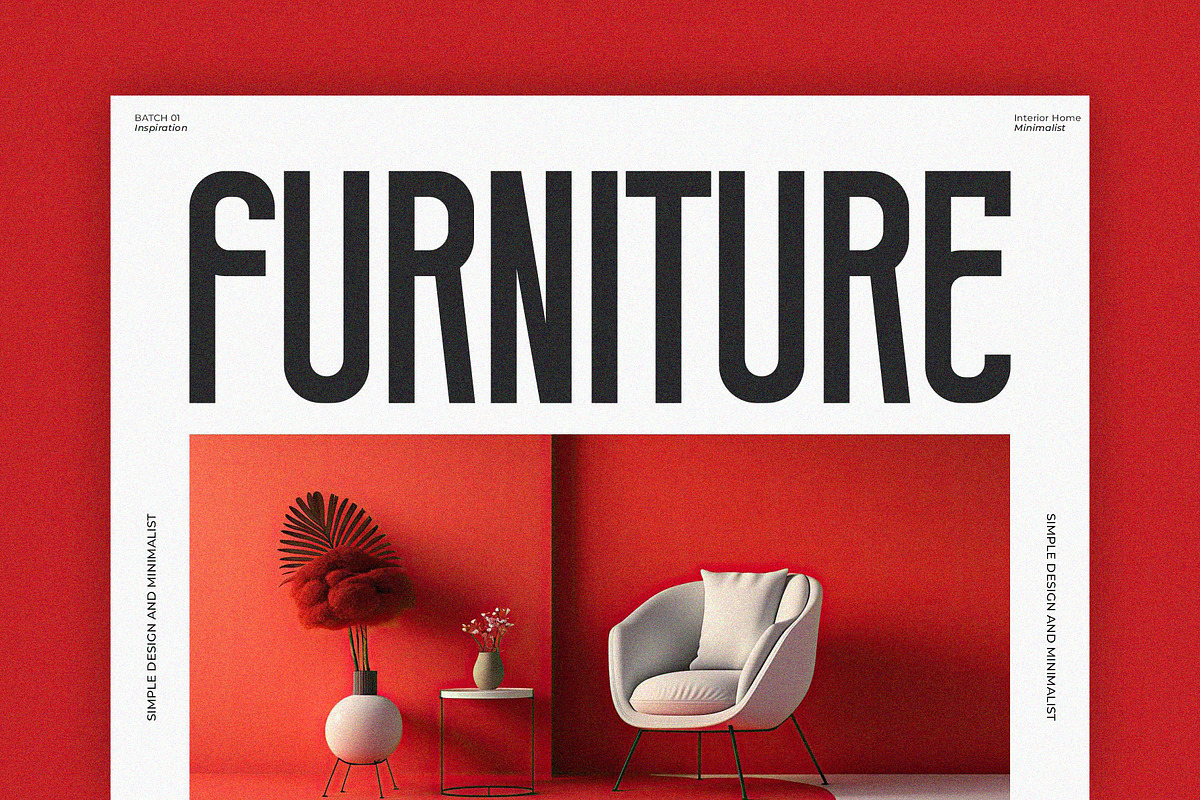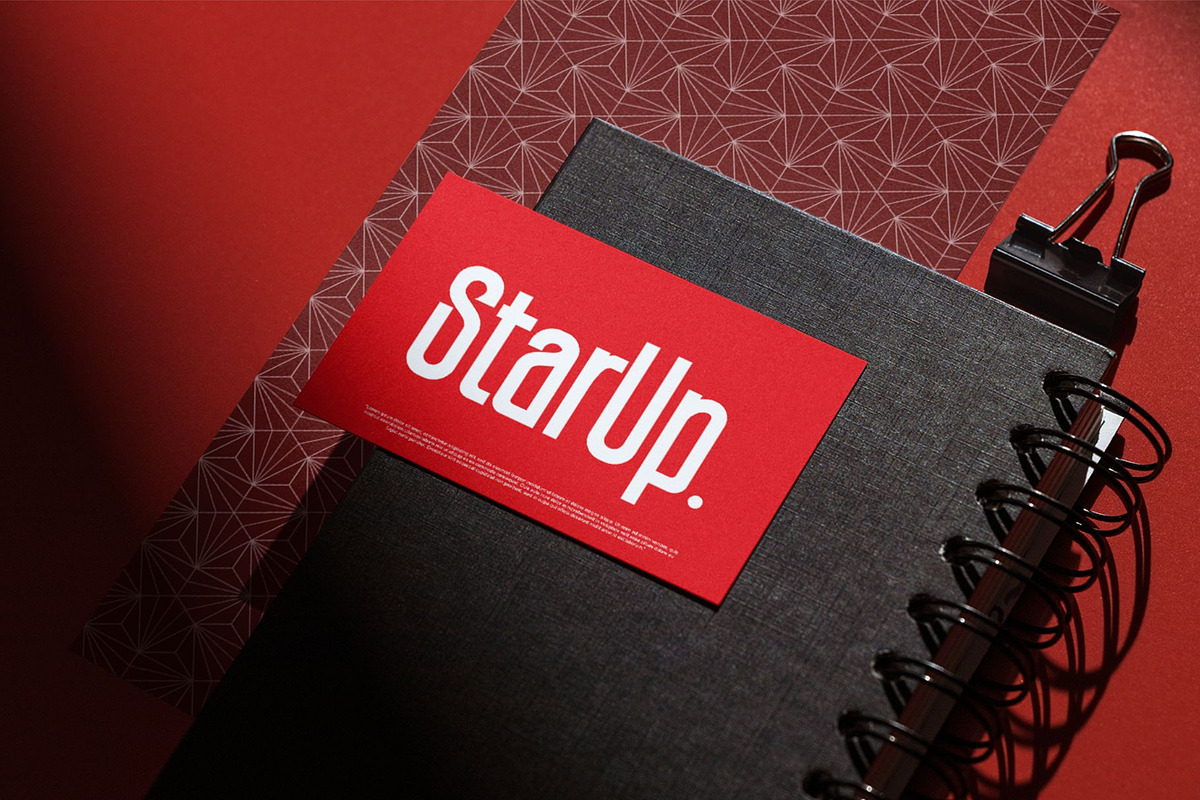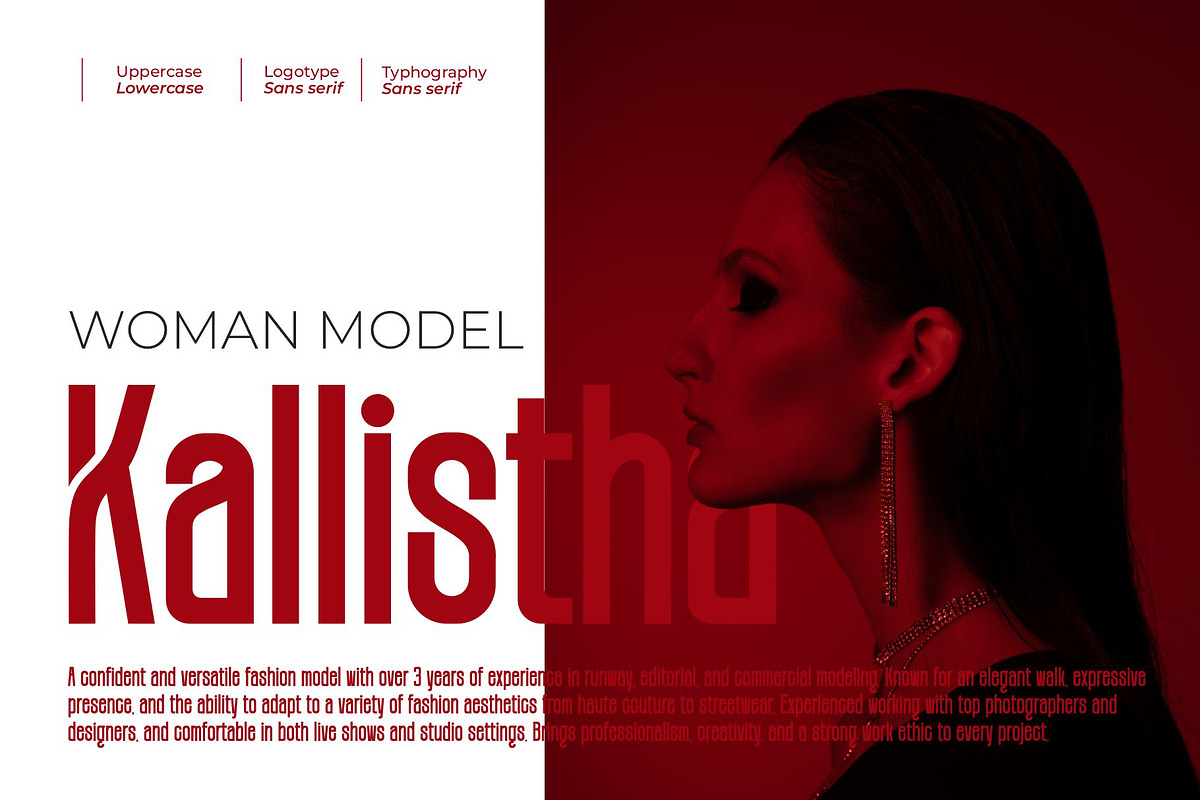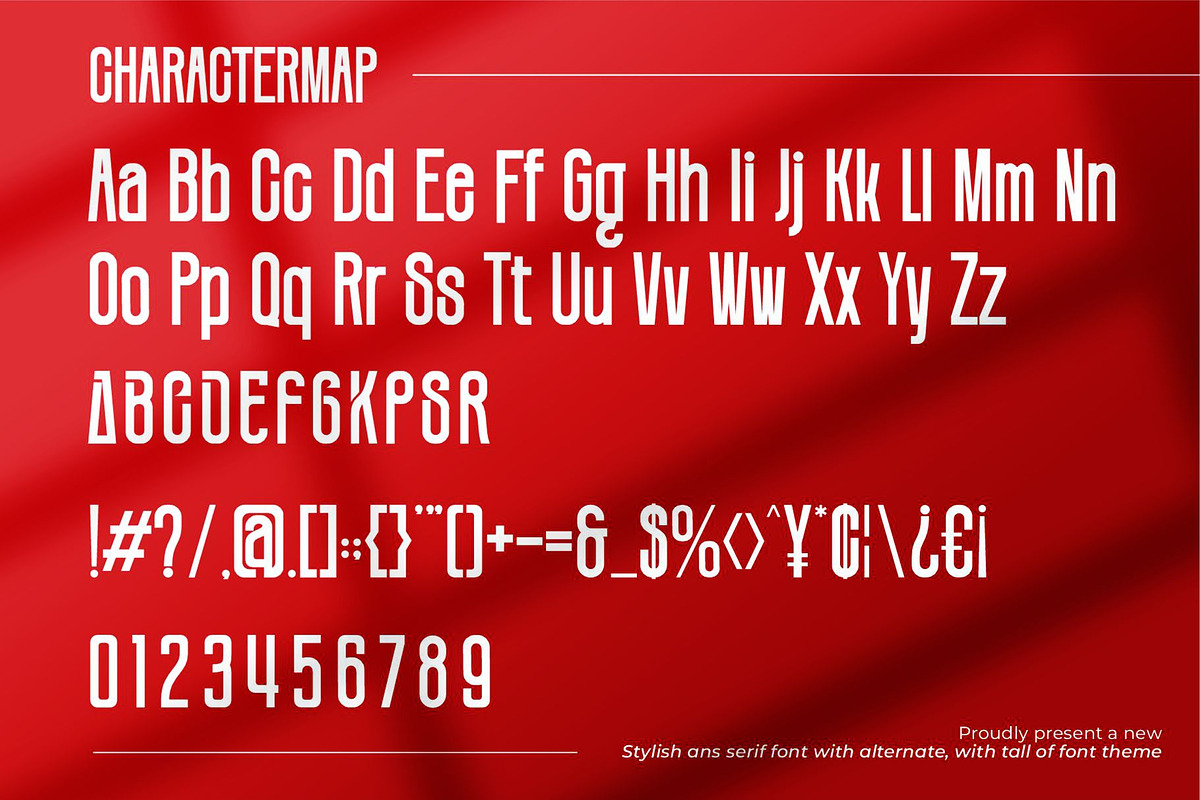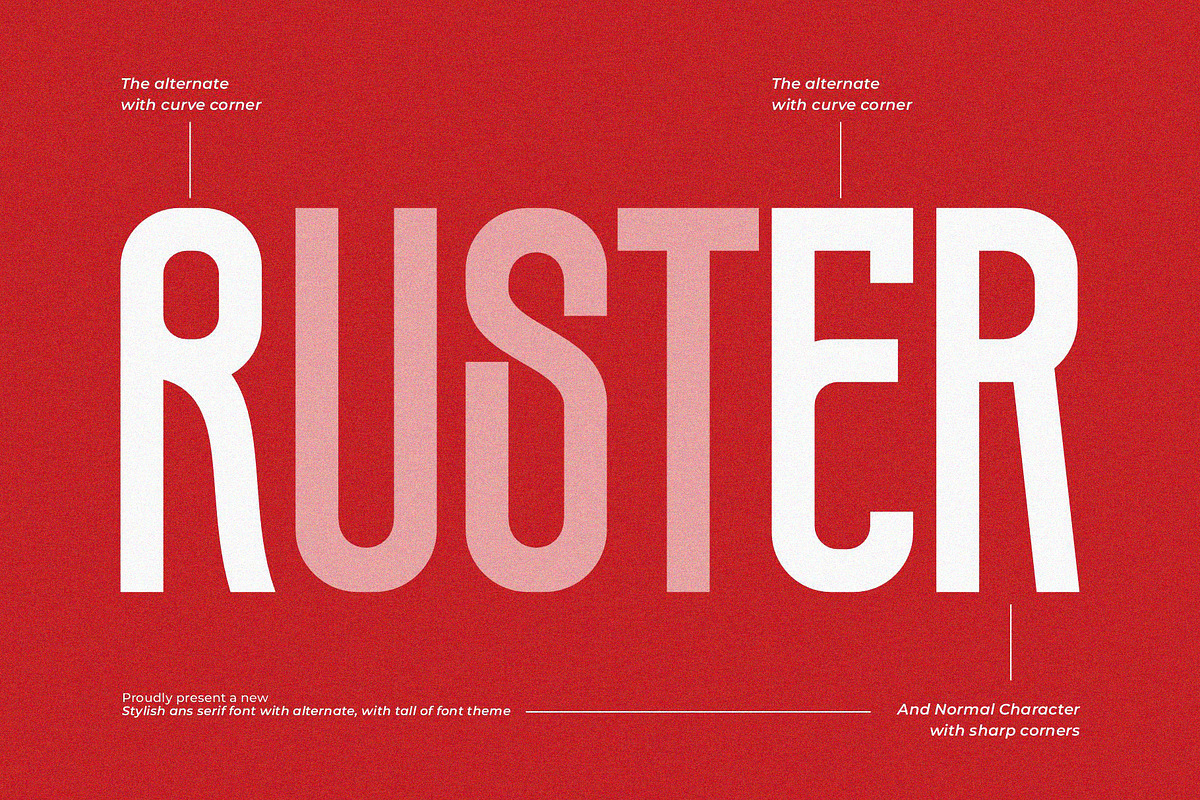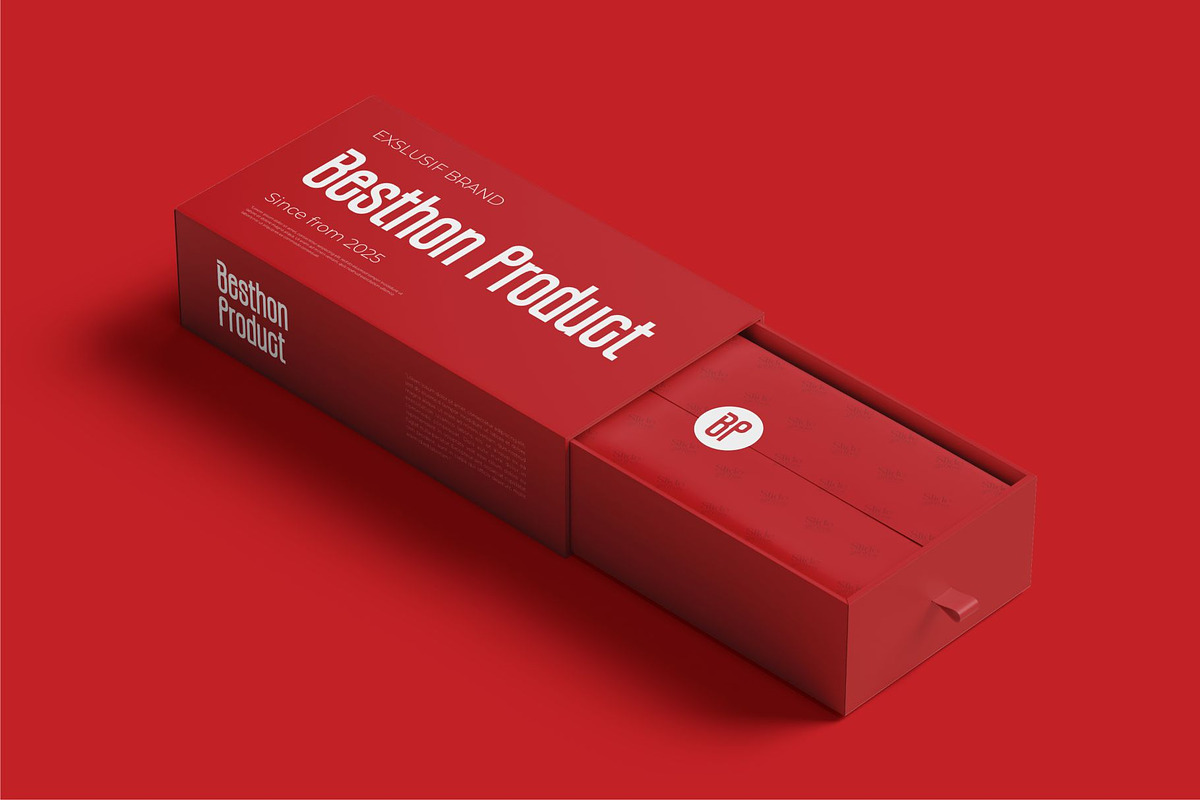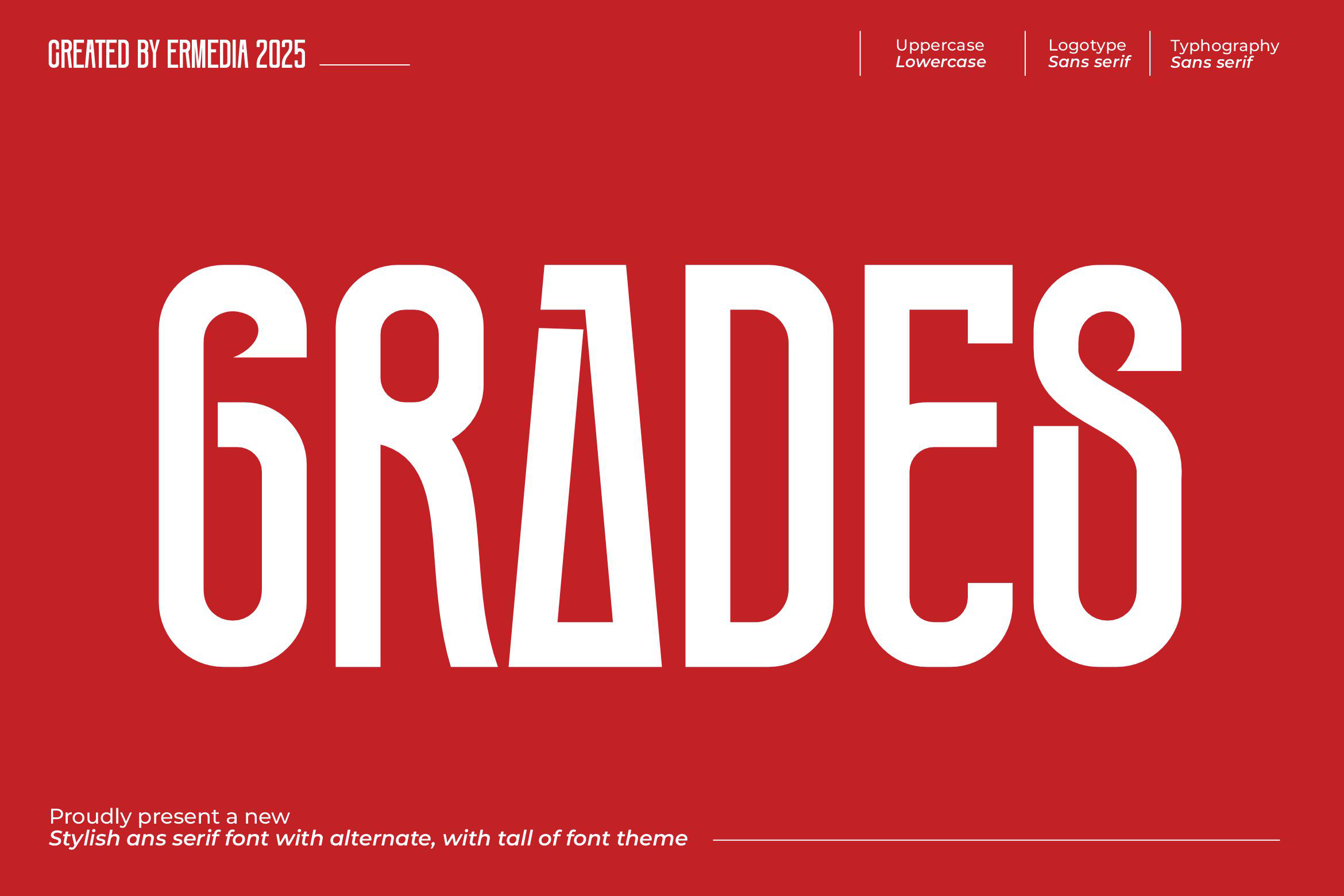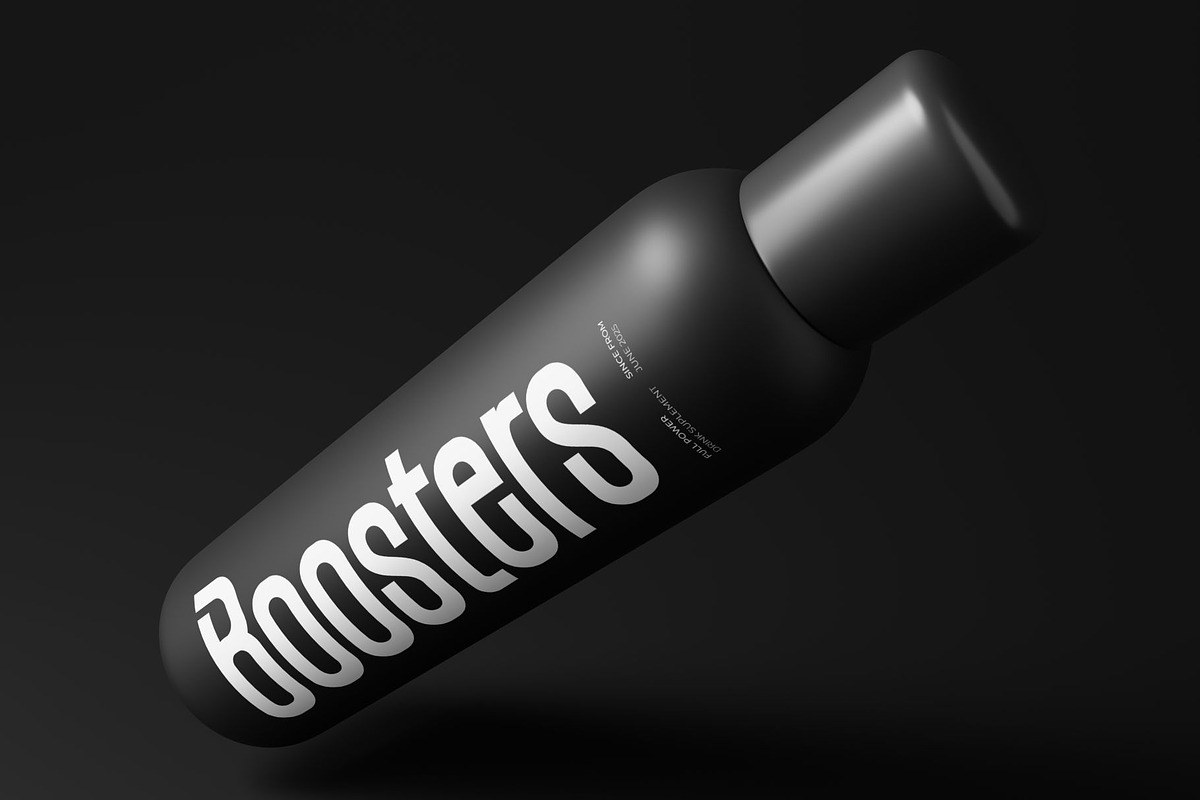
Grades | Modern Tall Sans Serif Font
Introducing Grades is tall sans serif Font modern, trendy and stylish. It has a unique character with wood theme. It is perfect to be combined with invitation card designs, company logos, movie titles, movie names, business cards, book titles, brand names and various other designs.